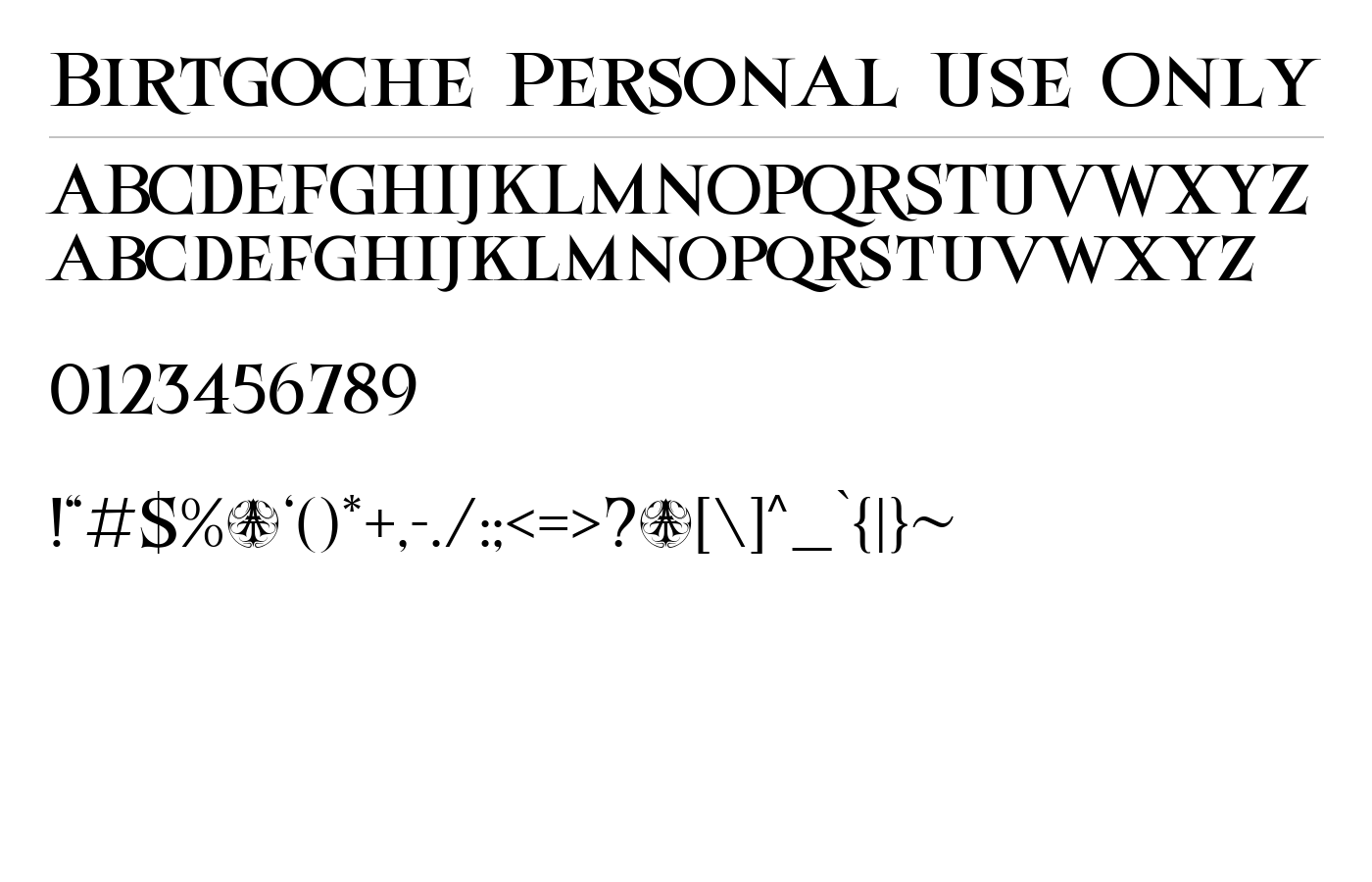
Birtgoche is a refined serif font characterized by its elegant high contrast between thick and thin strokes and sharp, delicate serifs that give it a sophisticated and classic appeal. With its tall, narrow letterforms and decorative details, it is well suited for luxury branding, editorial headlines, and any design seeking a timeless, upscale look. This font shines in settings where a touch of elegance and formality is desired, making it perfect for premium logos, fashion packaging, and stylish print materials.
Birtgoche Personal Use Only Font
About Birtgoche Personal Use Only Font
| Designer | TypeAliens |